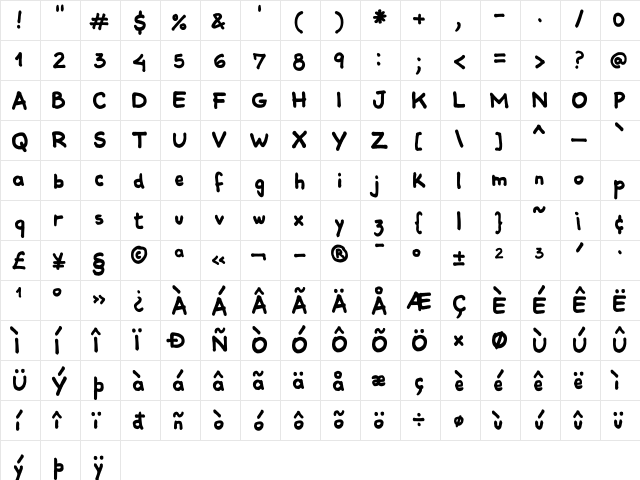
Comiquita Sans Medium
Design Context for Comiquita Sans Typeface
Comiquita Sans is a composed and adaptable typeface that performs quietly and consistently across a wide range of design contexts.